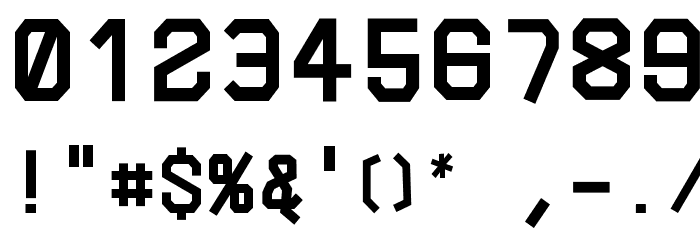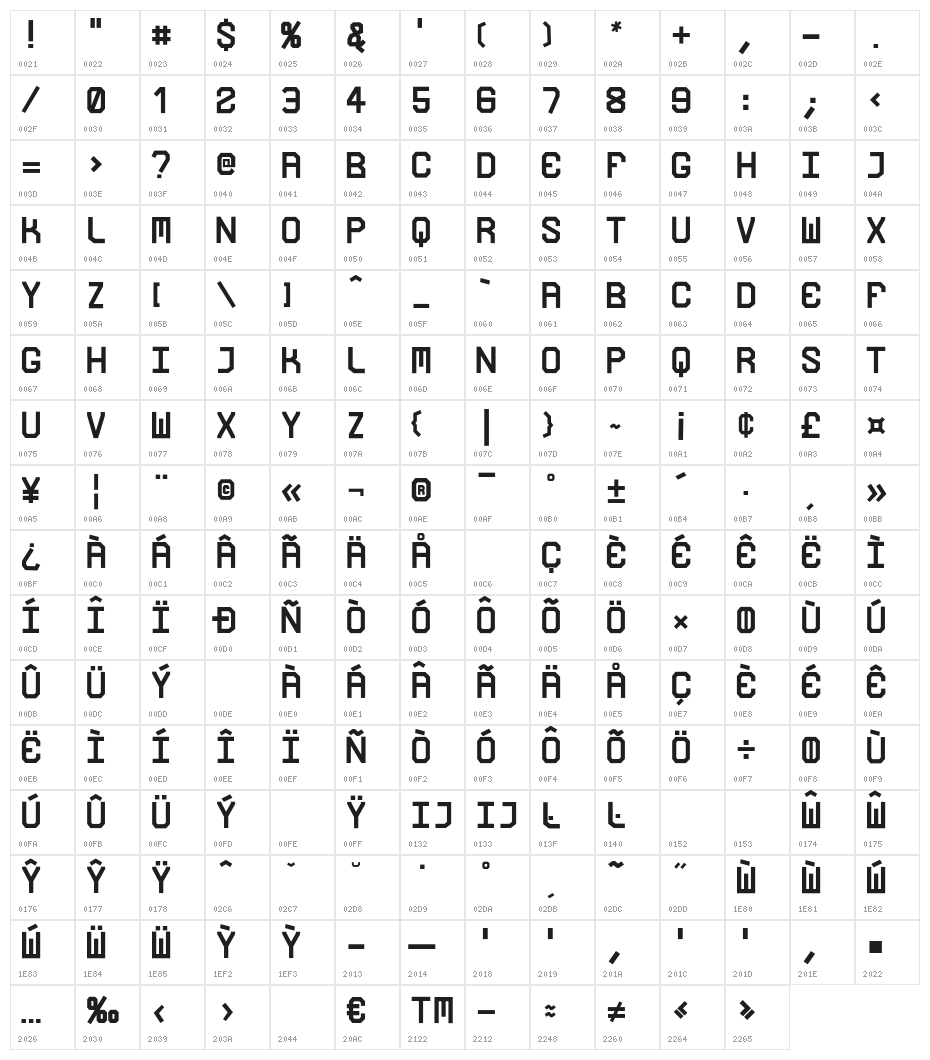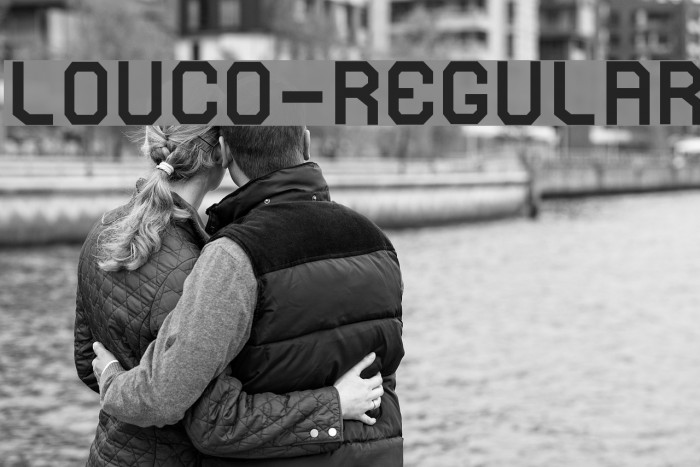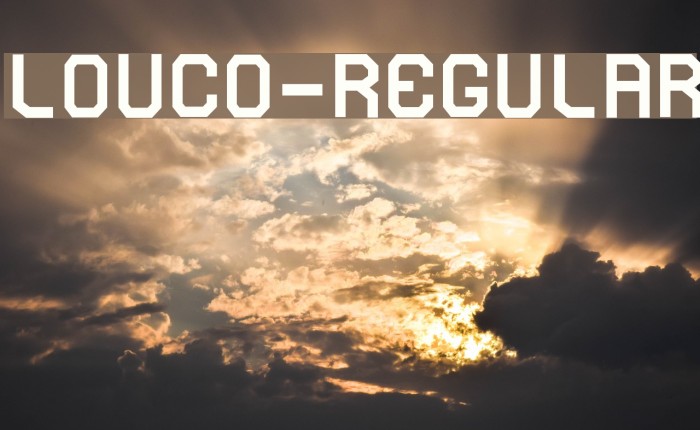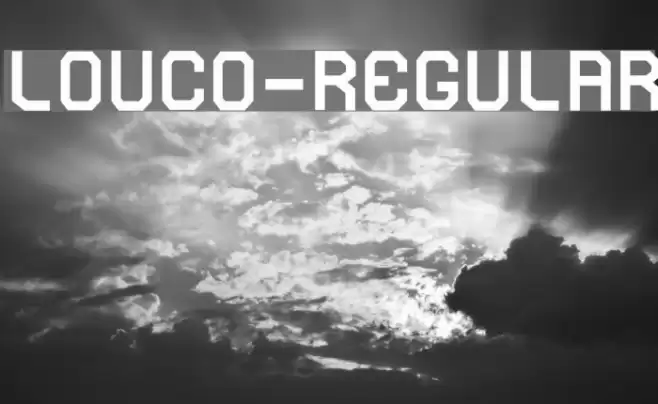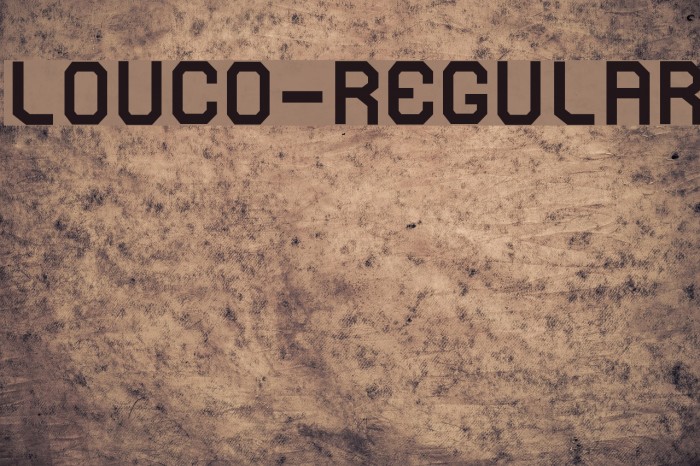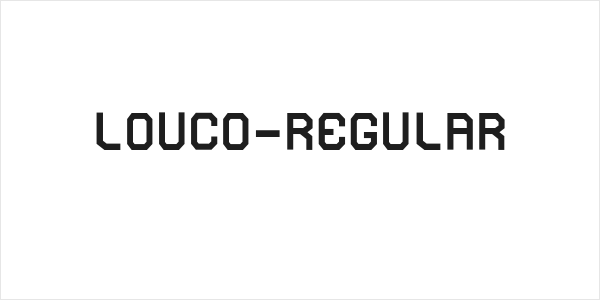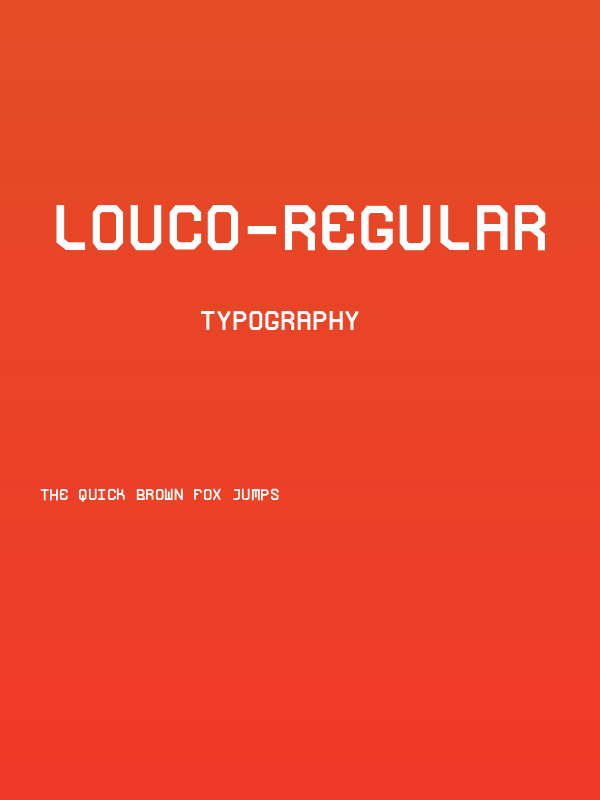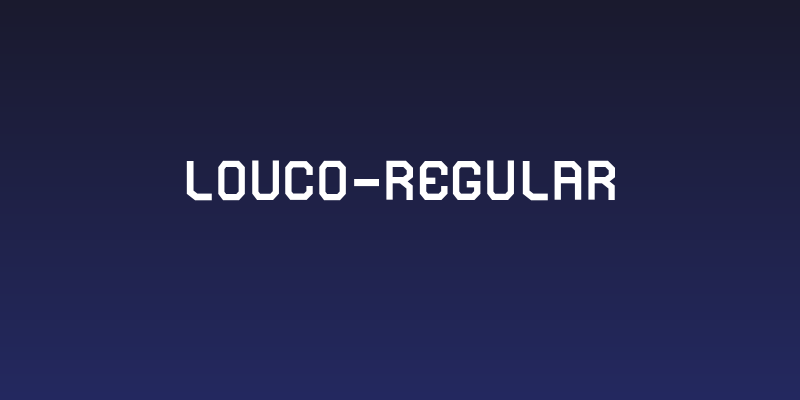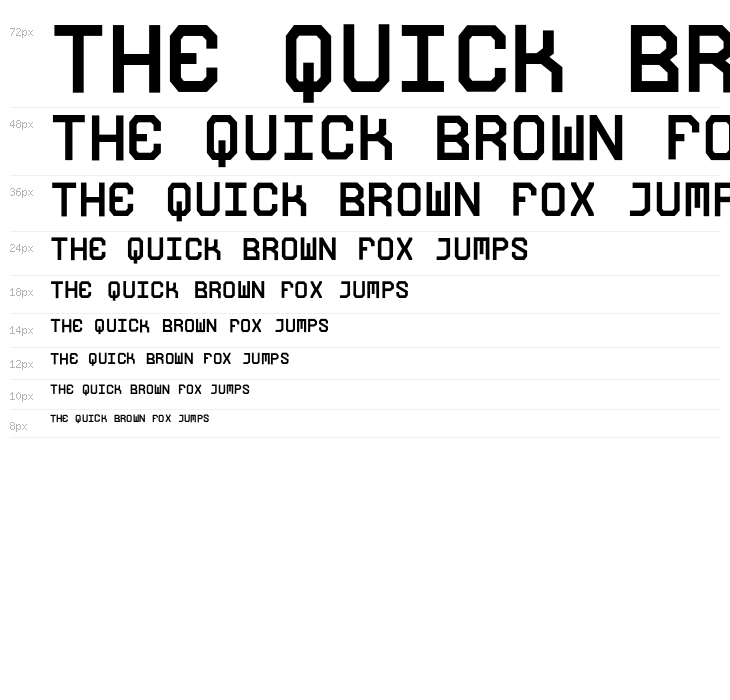
Louco-Regular Font
Louco-Regular Description
This font features a bold and geometric design with a strong, angular appearance. The characters are constructed with consistent line thickness, giving it a modern and industrial feel. The uppercase and lowercase letters maintain a uniform style, with sharp edges and a block-like structure. The numerals and special characters follow the same design principles, ensuring a cohesive look across all glyphs. The font's distinct style makes it highly legible and impactful, suitable for various design applications.
| Proposed Projects | Ideal for branding, posters, headlines, and any design requiring a strong, modern aesthetic. |